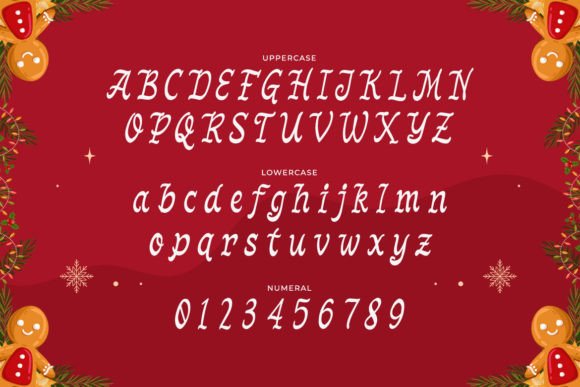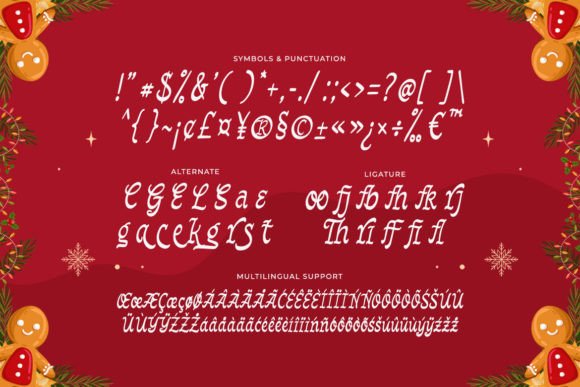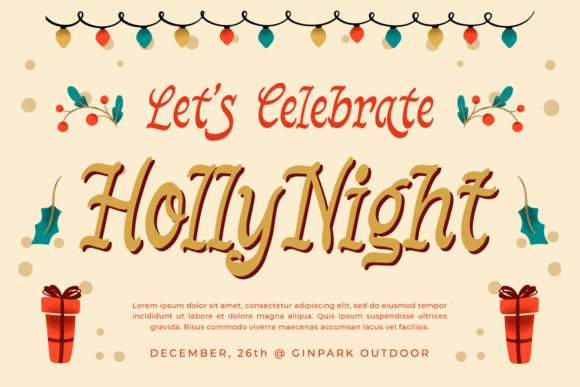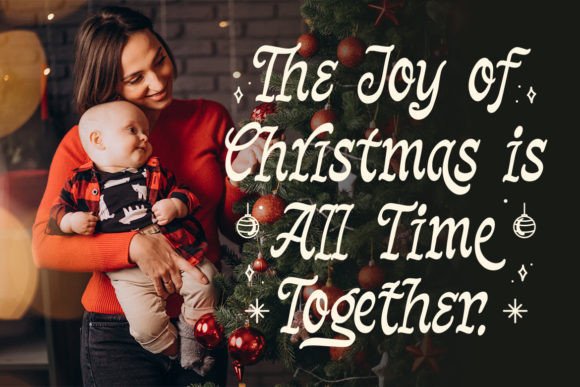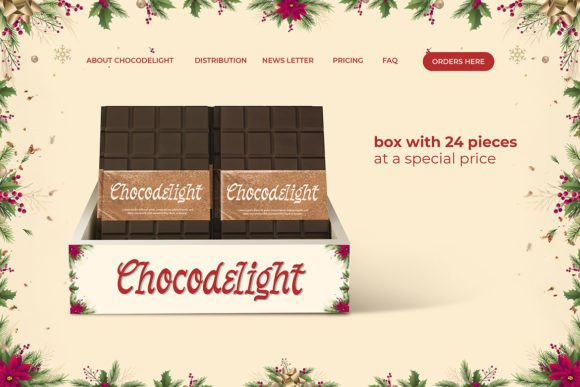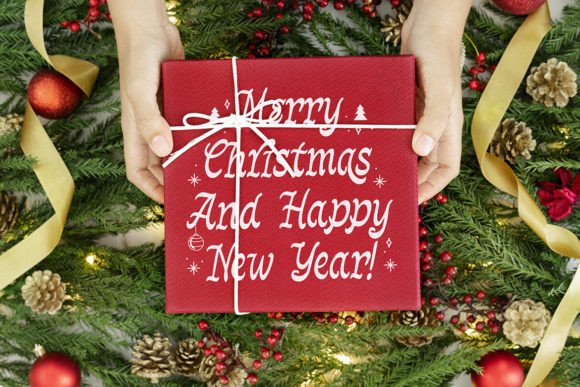
The Magic of Gingerjoy: A Festive Christmas Display Font
It’s that time of the year again – the holiday season is just around the corner, and with it comes the pressure to create stunning designs that capture the spirit of Christmas. I still remember the year I was tasked with designing a Christmas card for a client’s family, but I was struggling to find the perfect font. The design was supposed to be fun, festive, and full of holiday cheer, but every font I tried seemed either too boring or too over-the-top. That’s when I stumbled upon Gingerjoy, a whimsical Christmas display font that instantly brought my design to life.
What Makes Gingerjoy So Special?
Gingerjoy is more than just a font – it’s a design experience. With its playful and charming design, this font is perfect for creating greeting cards, invitations, and other holiday-themed designs that need a touch of fun and lightheartedness. Here are some of the things that make Gingerjoy stand out:
- ✨ Festive and cheerful look: Gingerjoy is designed to capture the spirit of Christmas, with a playful and whimsical design that’s sure to bring a smile to anyone’s face.
- ✅ Multilingual support: This font supports multiple languages, making it a great choice for designers who work with international clients or want to create designs that cater to a diverse audience.
- ✅ Uppercase and lowercase letters: Gingerjoy features both uppercase and lowercase letters, numbers, punctuation, and other special characters, making it a versatile font that can be used in a variety of settings.
Like any font, Gingerjoy has its strengths and weaknesses. Here’s my honest review:
- ✨ The font’s playful and whimsical design is perfect for creating festive and fun designs.
- ✅ The multilingual support is a huge plus, especially for designers who work with international clients.
- ✅ The font is easy to read, even at smaller sizes, making it perfect for designs that require a lot of text.
- ⚠️ Some of the letters have a slightly irregular shape, which may not be suitable for designs that require a high level of precision.
- 🤔 The font may not be the best choice for designs that require a more formal or traditional look.
A Practical Guide to Using Gingerjoy
Now that we’ve covered the basics of Gingerjoy, let’s dive into some practical tips on how to use this font in your designs.
Gingerjoy supports OpenType features and glyphs, which allow you to create unique and customized designs. Here are some of the OpenType features you can explore:
- Stylistic alternates: Gingerjoy offers stylistic alternates that allow you to create a more customized look.
- Glyphs: The font includes a range of glyphs that you can use to add decorative elements to your designs.
The Backstory Behind Gingerjoy
Gingerjoy was designed by a team of creatives who wanted to create a font that would capture the spirit of Christmas. The design process involved experimenting with different shapes, colors, and styles to create a unique and festive look. The result is a font that’s both playful and charming, with a touch of whimsy and humor.
Here are some frequently asked questions about Gingerjoy:
- Q: What type of designs is Gingerjoy best suited for?
- A: Gingerjoy is perfect for creating holiday-themed designs, such as greeting cards, invitations, and other festive designs.
- Q: Does Gingerjoy support multilingual characters?
- A: Yes, Gingerjoy supports multiple languages, making it a great choice for designers who work with international clients.
- Q: Is Gingerjoy easy to read?
- A: Yes, Gingerjoy is designed to be easy to read, even at smaller sizes, making it perfect for designs that require a lot of text.